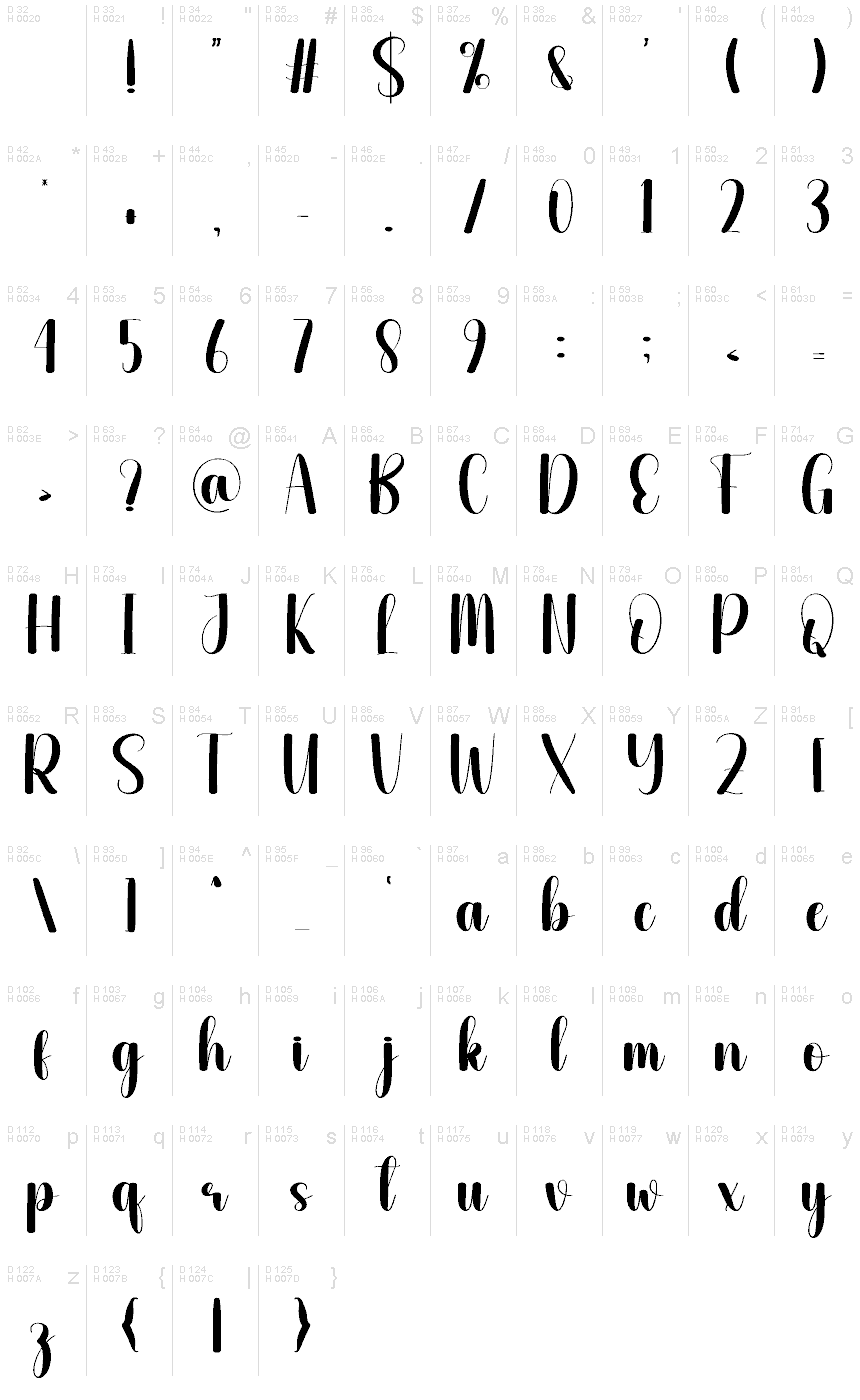
Electricstove
Electricstove font by Andi Moz is a decorative script font that embodies an elegant, modern touch. With its fluid and expressive forms, this romantic style gets a contemporary twist which makes the typeface incredibly popular with designers worldwide.
Create an eye-catching design for your books, magazines, product packaging, branding identities, invitations, posters, advertisements/findings; where you can layer it over photos or even illustrations for both print and digital platforms.